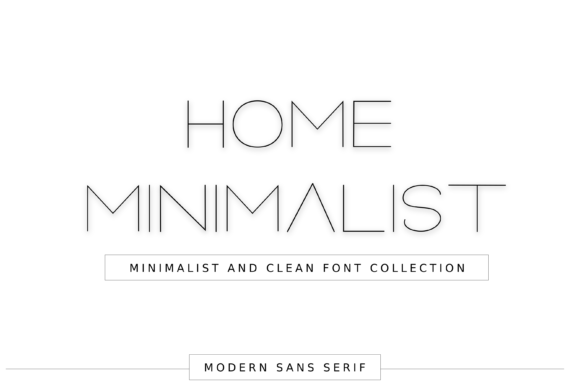
Dive into the world of simplicity and minimalism with Home Minimalist Font, a sans serif font family that exudes elegance and sophistication. Crafted meticulously by Goodrichees, this font is the epitome of clean lines and unpretentious beauty, making it the perfect choice for those seeking a touch of understated charm in their creative endeavors.
Designed with a focus on versatility, Home Minimalist Font seamlessly blends with a vast spectrum of projects, from captivating posters that demand attention to sleek branding designs that leave a lasting impression. Its delicate strokes and well-balanced letterforms create a visually appealing harmony, elevating your creations to new heights of visual appeal.
Whether you're a seasoned designer seeking to add a touch of sophistication to your work or a budding entrepreneur looking to make a statement with your branding, Home Minimalist Font is the key to unlocking your creative potential. Embrace the power of simplicity and elevate your designs with this remarkable font family.